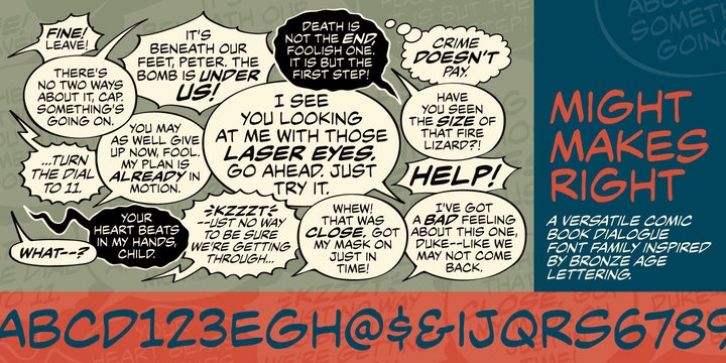
Might Makes Right BB is an all-purpose comic book dialogue font inspired by Bronze Age comics. It’s designed to compliment a wide variety of art styles. The opentype version has autoligatures to swap out adjacent, identical letter pairs for a more organic look, and a wide variety of European characters are included.